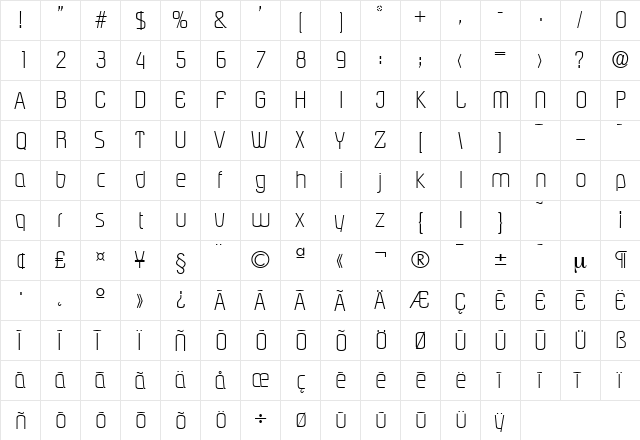
Pasadena-Serial-ExtraLight Regular
Design Context for Pasadena-Serial-ExtraLight Typeface
Pasadena-Serial-ExtraLight takes a measured approach to typography — its balanced proportions and neutral character make it a reliable workhorse for both digital and print work. Its slender proportions lend an understated elegance to any composition.
Pro Tip: Use Pasadena-Serial-ExtraLight in both headline and body roles to test its range before committing to a single application.